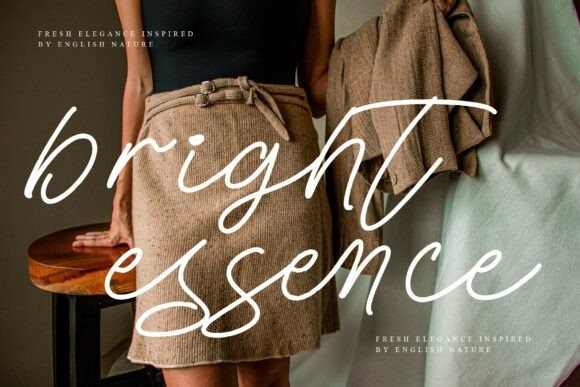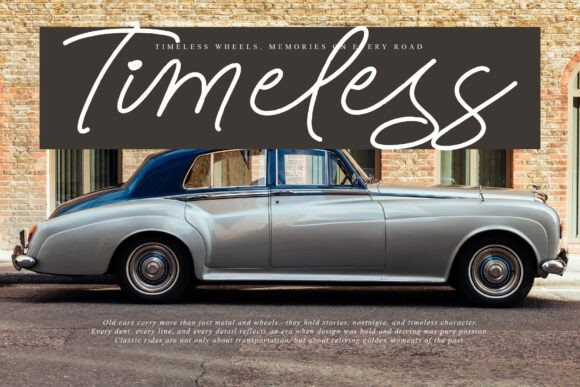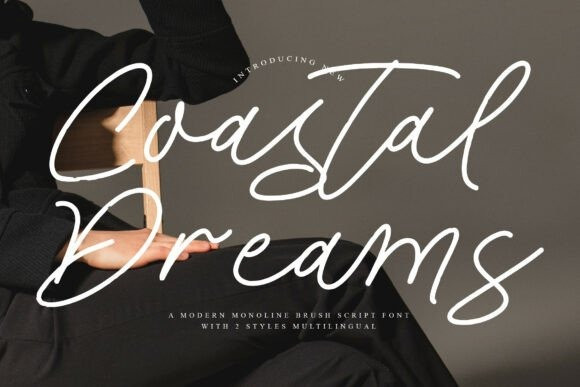
Coastal Dreams Font
Coastal Dreams Font a modern monoline brush script that captures the free-flowing charm of handwriting kissed by the ocean breeze.With its smooth, organic strokes and natural rhythm, Coastal Dreams brings a sense of calm sophistication to any project. Designed in two versatile styles, it balances casual grace and modern refinement, making it ideal for both relaxed and professional design concepts.Perfect for branding, product packaging, wedding invitations, editorials, and social media, this script font radiates warmth and personality. Its delicate monoline structure gives it a clean, airy feel — perfect for minimalist layouts and contemporary aesthetics.The multilingual support ensures your message travels beautifully across languages, while the font’s natural flow makes it an excellent choice for logos, quotes, or lifestyle content. Whether you’re crafting seaside-inspired branding or elegant stationery, Coastal Dreams will make your designs shine with effortless beauty.Let your creativity flow like waves — with Coastal Dreams, every word feels alive, calm, and authentically human.